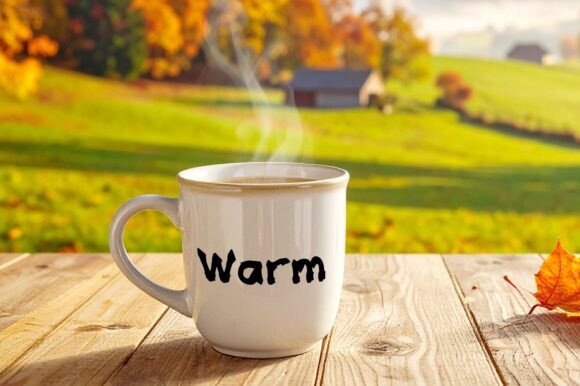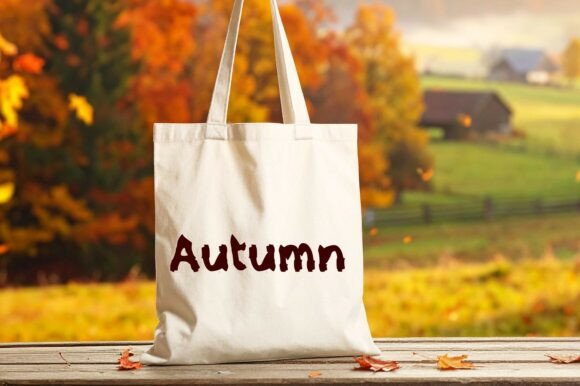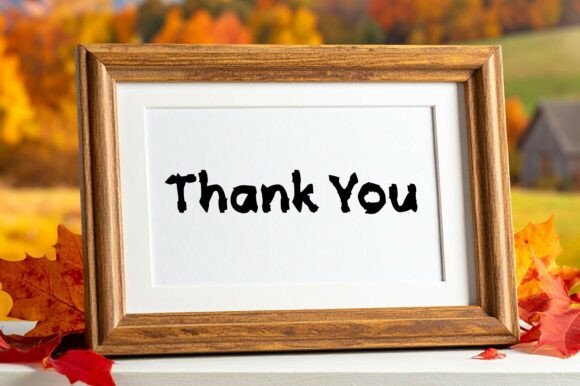
Discover the Enchanting Charm of Codetan Font
Are you looking for a font that exudes warmth, coziness, and a personal touch? Look no further than Codetan, a handcrafted font that embodies the spirit of handwritten prose. With its naturally free-flowing strokes and subtly irregular rhythms, Codetan is the perfect choice for designers and crafters seeking to add a touch of authenticity to their work.
The Unique Appeal of Codetan
Codetan’s intrinsic charm lies in its unforced sophistication and tangible human sincerity. This benevolent handwritten typeface gracefully unites casual spontaneity and incontestable readability, making it an ideal choice for a wide range of design projects. Whether you’re creating a warm and inviting brand identity, a cozy packaging design, or a heartfelt greeting card, Codetan’s gentle inconsistencies and dynamic rhythm are sure to captivate your audience.
What Makes Codetan So Special?
So, what sets Codetan apart from other fonts? Here are just a few of its unique features:
• Handcrafted with love: Codetan is a carefully crafted font, imbued with the imperfections and irregularities that make handwritten text so charming.
• Upper and lowercase letters: Codetan includes harmonious upper and lowercase letters, ensuring that your text looks beautiful and balanced.
• Numerals for precision: Whether you need to include numbers in your design, Codetan’s got you covered with a range of precise numerals.
• Comprehensive character set: Codetan’s character set is comprehensive, making it easy to create beautiful text that flows effortlessly.
Using Codetan in Your Design Projects
Codetan is an incredibly versatile font, suitable for a wide range of design projects. Here are just a few ideas to get you started:
• Branding and packaging: Use Codetan to create a warm and inviting brand identity that resonates with your audience.
• Greeting cards and stationery: Add a personal touch to your greeting cards, letters, and other stationery with Codetan’s charming handwritten style.
• Web design: Use Codetan to create a cozy and inviting website that feels like a warm hug.
• Digital art: Experiment with Codetan in your digital art projects, combining it with other fonts and graphics to create something truly unique.
Tips for Getting the Most Out of Codetan
To really make Codetan shine, try these expert tips:
• Experiment with sizes and colors: Don’t be afraid to try out different sizes and colors with Codetan – its versatility makes it perfect for a wide range of applications.
• Combine with other fonts: Pair Codetan with other fonts to create a unique and eye-catching design.
• Play with spacing and layout: Experiment with different spacing and layout options to really make your text come alive.
In conclusion, Codetan is a truly enchanting font that offers a unique blend of warmth, coziness, and personality. With its handcrafted charm, naturally free-flowing strokes, and comprehensive character set, Codetan is the perfect choice for designers and crafters seeking to add a touch of authenticity to their work. So why wait? Download Codetan today and discover the magic for yourself!